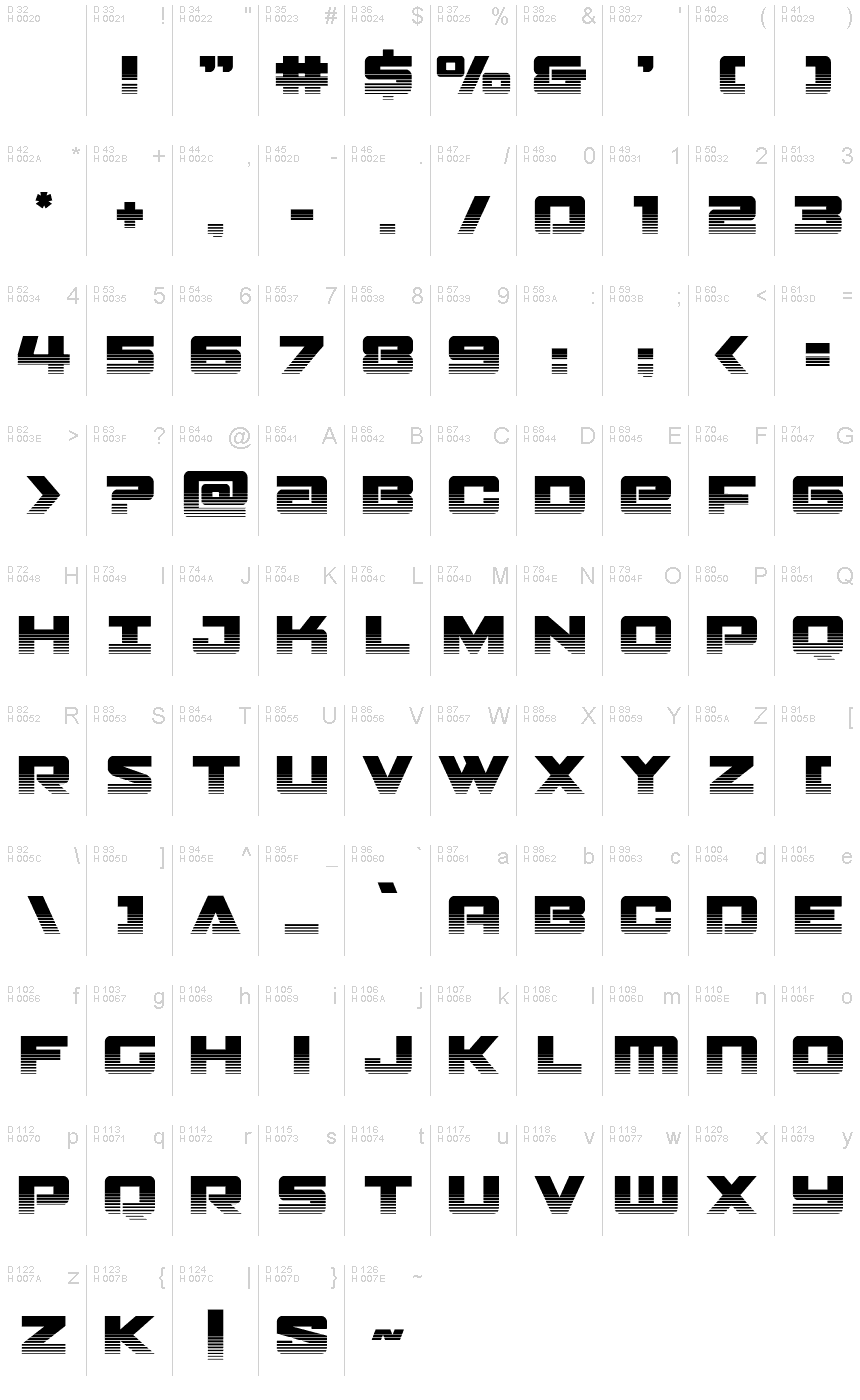
Power Broker Twotone
Power Broker Twotone emerges from the Power Broker font family as a commanding display typeface with a decidedly futuristic flair. Crafted by Iconian Fonts, this extra-bold and extra-expanded font embodies strength and modernity, making it an impeccable choice for projects that demand attention. The two-tone style enhances its visual impact, adding a layer of sophistication to its already striking appearance.
Its bold lines and expansive letterforms exude confidence, making it an ideal candidate for branding, advertising, and any digital or print medium where presence is key. The clean geometry and sharp contrast imbued in Power Broker Twotone give it an aesthetic edge that will resonate with audiences seeking cutting-edge design.
Embrace the potential of this font to convey power and innovation in your creative endeavors. Whether you're crafting titles for sci-fi films or designing impactful headers for tech startups, Power Broker Twotone stands ready to elevate your work with its unique blend of contemporary style and robust character.
Its bold lines and expansive letterforms exude confidence, making it an ideal candidate for branding, advertising, and any digital or print medium where presence is key. The clean geometry and sharp contrast imbued in Power Broker Twotone give it an aesthetic edge that will resonate with audiences seeking cutting-edge design.
Embrace the potential of this font to convey power and innovation in your creative endeavors. Whether you're crafting titles for sci-fi films or designing impactful headers for tech startups, Power Broker Twotone stands ready to elevate your work with its unique blend of contemporary style and robust character.